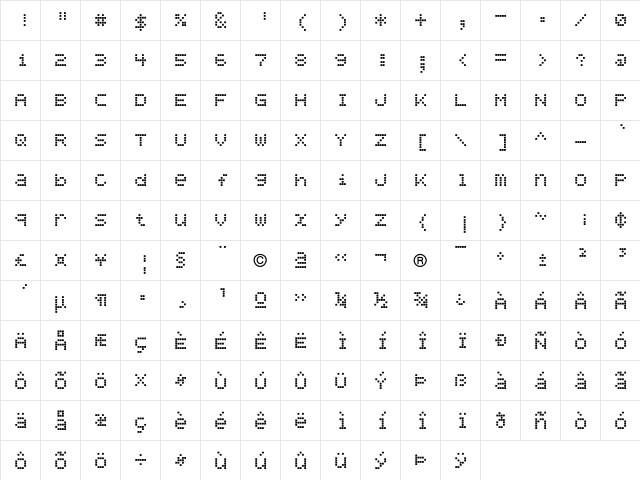
BubbledotICG CoarsePos
Design Context for BubbledotICG Typeface
BubbledotICG celebrates the constraints of early digital type, turning pixel geometry into a distinctive and immediately recognisable style.
A natural choice for retro game titles, chiptune music branding, 8-bit UI, and digital nostalgia projects.
Pro Tip: Pair BubbledotICG with flat colour palettes and simple geometric UI elements to reinforce its digital aesthetic.